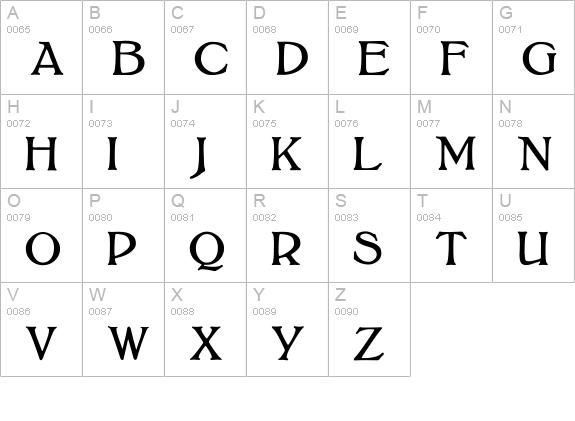
Bolton font is a modern and stylish typeface that exudes elegance and sophistication. Its sleek lines and distinctive curves make it perfect for a wide range of design projects, from logos to branding to print materials. The versatility of Bolton font allows it to be used in both formal and informal settings, adding a touch of class to any design. What sets Bolton font apart is not only its timeless design but also the fact that it is available for free download at FontsMarket.com. This means that you can easily access this high-quality font without any cost, making it a valuable addition to your font collection. Whether you're a graphic designer looking for a new go-to font or a business owner in need of a fresh look for your brand, Bolton font is sure to impress. Its clean and professional appearance will help your designs stand out and make a lasting impression on your audience. Download Bolton font today and elevate your projects with this stunning typeface.